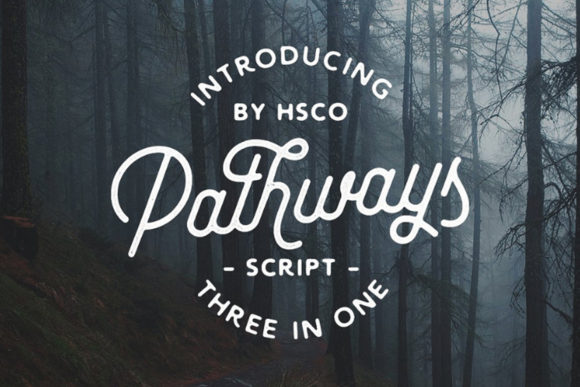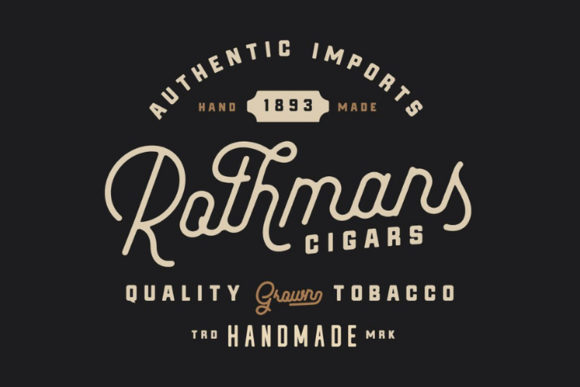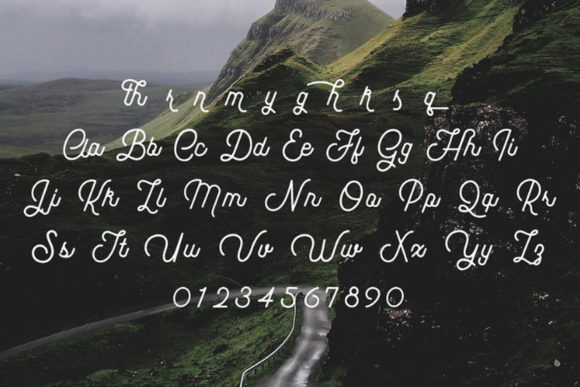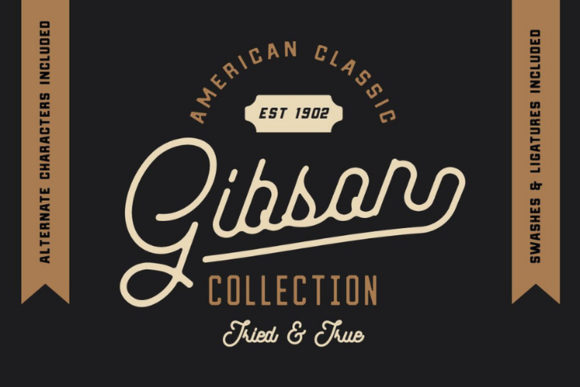
Pathways Font
About Pathways Font
Pathways is a magical script font carefully created with a touch of elegance. It will elevate a wide range of design projects to the highest level, be it branding, headings, wedding designs, invitations, signatures, logos, labels, and much more!